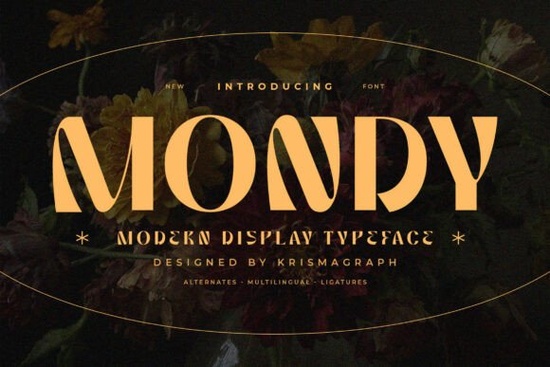
If you've been searching for a typeface that feels both modern and expressive, the Mondy font might be exactly what your next project needs. It's a bold display typeface with clean geometry, smooth curves, and letterforms that stand out without trying too hard. Whether you're designing a logo, building a brand kit, or creating social media graphics, Mondy brings a refined yet confident look to the table.
Made for designers, crafters, and small business owners, this typeface blends contemporary style with decorative personality. Let's break down what makes it worth your attention and where it works best.
What Makes Mondy Different from Other Display Fonts?
Plenty of modern fonts aim for boldness, but many end up looking stiff or overly industrial. Mondy takes a different approach. Its bold geometry pairs with elegant curves, giving each letter a sense of movement and sophistication. The shapes are distinctive without being hard to read, and the proportions stay balanced even at large sizes.
It also includes thoughtful details like stylish alternates and ligatures, so you can fine-tune how your text looks in headlines, logos, or branding elements. These aren't just decorative extras they help you avoid repetitive letter combinations and add polish to your final design.
For comparison, if you work on a variety of projects, pairing Mondy with something like a clean sans-serif option like Kitaro can give you a solid type system for both headlines and body copy.
Where Does This Font Work Best?
Mondy is designed as a display typeface, which means it shines in situations where text needs to make an impression quickly. Think big, not small. Here are some practical uses:
- Logos and branding systems Its unique letterforms help create memorable brand identities
- Posters and editorial layouts The bold weight and decorative alternates grab attention
- Packaging design Works well for premium products, especially in beauty, fashion, or lifestyle
- Website headers Clean enough for digital screens, expressive enough to set a mood
- Social media graphics Stands out in crowded feeds without looking cluttered
- Album artwork and event materials Its artistic character suits creative industries
If you're a print-on-demand seller, Mondy could work well for typography-focused designs on merchandise like tote bags, mugs, or apparel especially when you want something more interesting than a basic sans-serif.
Does It Support Multiple Languages?
Yes. Mondy includes multilingual support, which means you can use it for projects in languages beyond English. This is especially useful if you sell products internationally or work with clients in different regions.
Along with multilingual characters, the font includes:
- Full uppercase and lowercase letter sets
- Punctuation marks
- Numeral characters
- Ligatures and stylistic alternates
This combination gives you enough flexibility to handle most headline and branding tasks without needing to swap fonts mid-project.
How Does Mondy Compare to Other Creative Fabrica Fonts?
Choosing the right font depends on the tone you're going for. Mondy sits in a space between geometric modern and decorative display it's expressive but not chaotic.
If you need something softer and more whimsical, a lavender-inspired script font might suit a different kind of project, like wedding invitations or feminine branding. On the other hand, if your work leans toward something with more industrial weight, a bold, industrial typeface could be a better fit.
For projects that need a storybook or editorial feel, a whimsical chapter font offers a completely different personality. And if you're organizing your design workflow, pairing creative display fonts with something practical like a study planner font can keep your toolkit well-rounded.
Is Mondy Right for Your Next Project?
If you work on branding, packaging, posters, or digital content and need a display font that feels modern, bold, and slightly artistic Mondy is a solid choice. It's not trying to do everything, and that's what makes it effective. It does display typography well, with enough character to feel special without overwhelming your layout.
Quick Checklist Before You Buy
- Know your use case. Mondy works best for headlines and logos, not long paragraphs of body text.
- Check your project needs alternates and ligatures. If yes, this font delivers.
- Test pairing options. Try it with a simple sans-serif for body copy to create contrast.
- Confirm multilingual requirements. Mondy covers a wide range of characters, but always verify for your specific language.